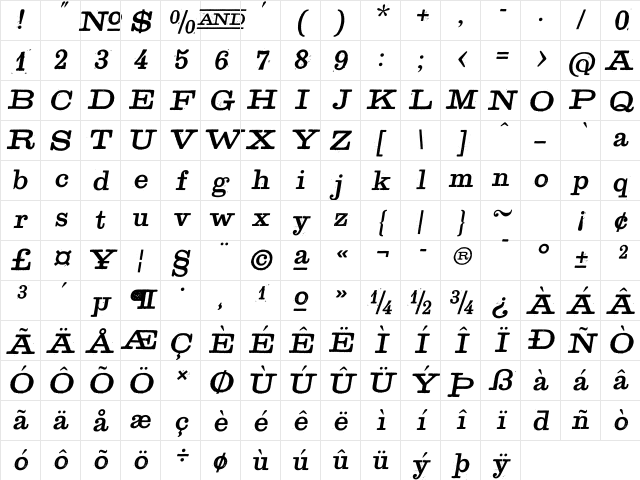
Golden Age is a composed and adaptable typeface that performs quietly and consistently across a wide range of design contexts. The slanted form adds forward momentum and visual energy.
Pro Tip: Use Golden Age for emphasis, pull quotes, and subheadings where its slanted energy can add rhythm to the layout.